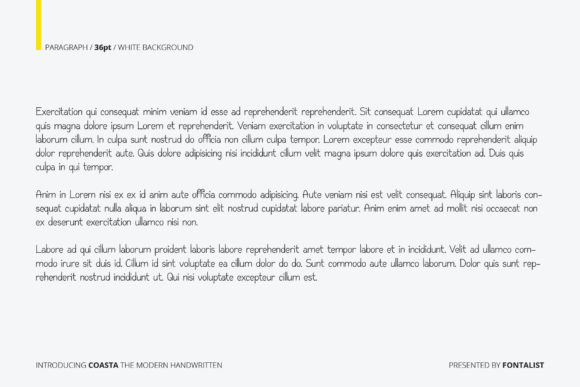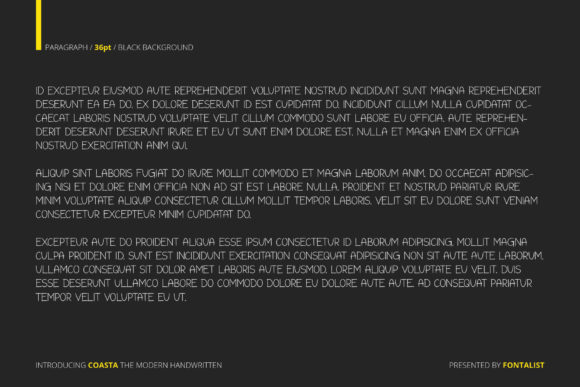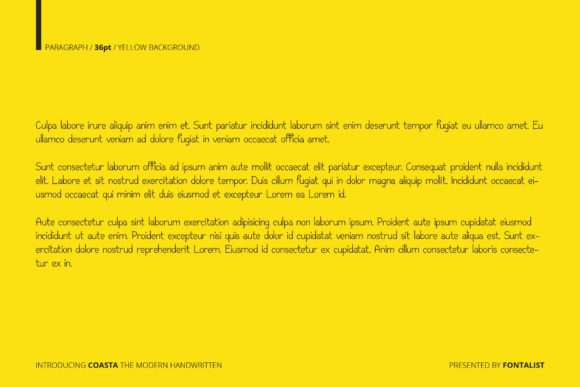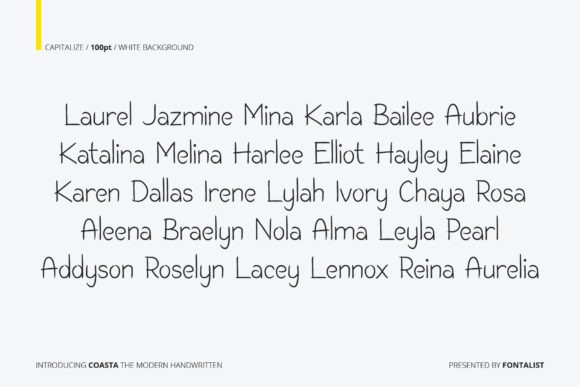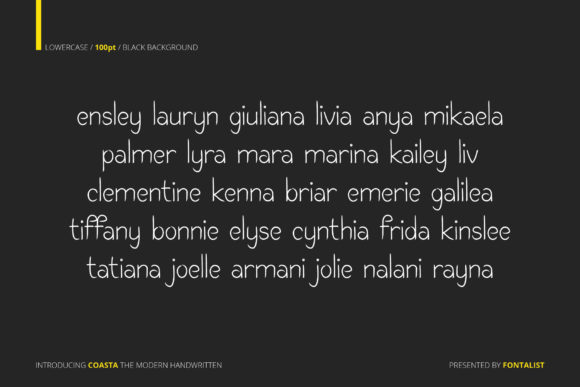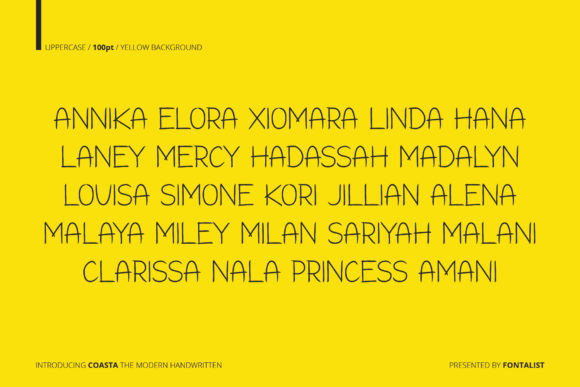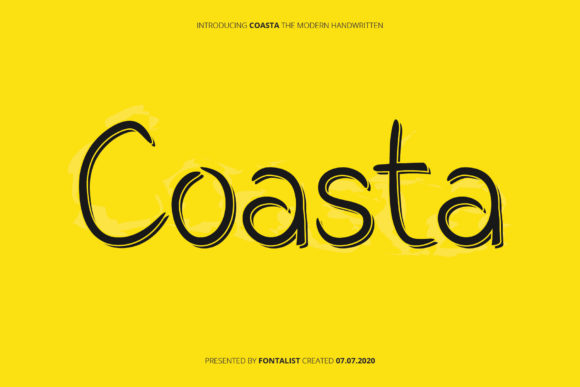
Introducing Coasta Font: The Sweet and Round Lettered Handwritten Font
Are you a designer or crafter looking for a unique and versatile font to elevate your creative projects? Look no further than Coasta Font, a sweet and round lettered handwritten font that’s perfect for a wide range of designs. With its natural and distinctive style, Coasta Font is sure to capture the attention of your audience and leave a lasting impression.
The Characteristics of Coasta Font
Coasta Font is a beautifully crafted handwritten font that’s characterized by its rounded and smooth letterforms. The font’s natural and effortless style makes it incredibly fitting for a variety of designs, from rustic and vintage-inspired projects to modern and minimalist ones. The unique and distinctive features of Coasta Font include:
- Rounded and smooth letterforms for a soft and friendly look
- Natural and effortless style that’s perfect for handmade and crafty designs
- Unique and distinctive features that set it apart from other fonts
- Highly legible and easy to read, even at small sizes
The Versatility of Coasta Font
One of the best things about Coasta Font is its incredible versatility. The font’s natural and unique style makes it suitable for a wide range of designs, including:
- Handmade and crafty projects, such as DIY tutorials and crafting blogs
- Vintage and rustic-inspired designs, such as wedding invitations and packaging
- Modern and minimalist designs, such as branding and advertising materials
- Digital and print materials, such as e-books and magazines
Why Choose Coasta Font?
So why choose Coasta Font for your next design project? Here are just a few reasons:
- Unique and distinctive style: Coasta Font’s natural and effortless style sets it apart from other fonts and makes it perfect for designers who want to create something truly unique.
- Highly versatile: Coasta Font is suitable for a wide range of designs and can be used for both digital and print materials.
- Easily legible: Coasta Font is highly legible and easy to read, even at small sizes, making it perfect for designs that require a lot of text.
- Perfect for handmade and crafty designs: Coasta Font’s natural and effortless style makes it perfect for handmade and crafty designs, such as DIY tutorials and crafting blogs.
How to Use Coasta Font
Using Coasta Font is easy! Here are a few tips to get you started:
- Pair it with other fonts: Coasta Font pairs well with other fonts, such as sans-serif fonts and script fonts. Experiment with different combinations to find the perfect look for your design.
- Use it for headings and titles: Coasta Font is perfect for headings and titles, where its unique and distinctive style can really shine.
- Use it for body text: Coasta Font is also suitable for body text, where its high legibility and ease of reading make it perfect for longer blocks of text.
In conclusion, Coasta Font is a sweet and round lettered handwritten font that’s perfect for designers and crafters who want to add a touch of natural elegance to their creative projects. With its unique and distinctive style, high versatility, and ease of use, Coasta Font is sure to become a favorite in your font collection. So why wait? Download Coasta Font today and start creating beautiful designs that capture the attention of your audience!